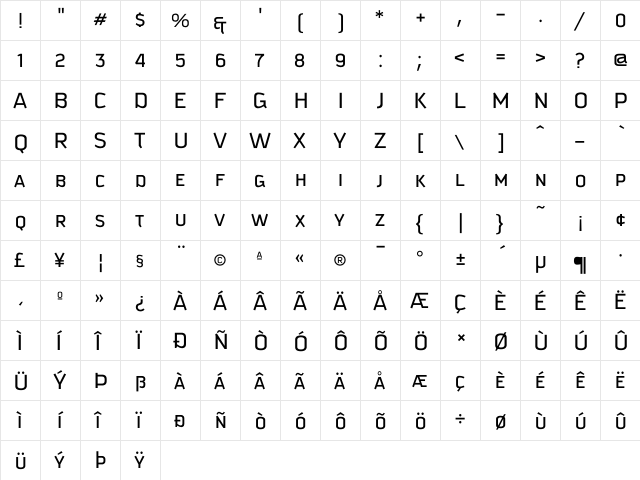
Kautiva Caps Regular
Design Context for Kautiva Caps Typeface
Kautiva Caps is a composed and adaptable typeface that performs quietly and consistently across a wide range of design contexts.